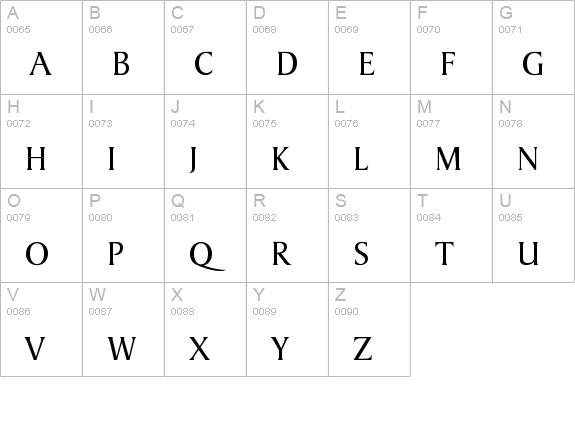
Sydney-Light is a refined, elegant variant in the Sydney typeface family \xE2\x80\x94 well suited to elegant body text, refined sub-headings, and luxury branding.